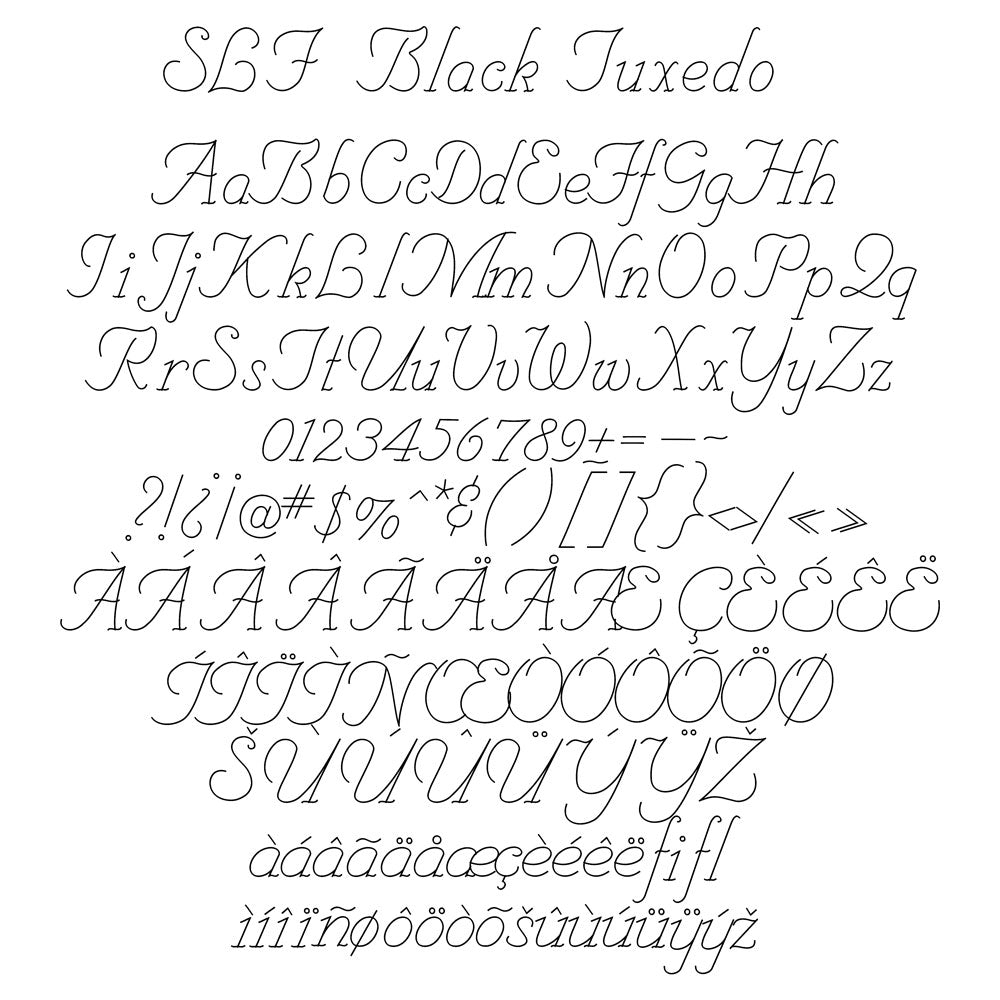
SLF Black Tuxedo – Dressy Single Line Font for Invitations & Engraving
SLF Black Tuxedo is a dressy single line print font with a polished, formal look—perfect for invitations, greeting cards, elegant signage, engraving, Foil Quill, Glowforge projects, and more. This font includes an extended Latin character set for additional languages (see the character set image on the listing).
This monoline font is designed to work beautifully for engraving, scoring, sketch pen tools, and CNC-style projects where clean, refined lettering matters.
• Wedding and event invitations
• Formal stationery and announcements
• Foil Quill and pen plotters
• Personalized gifts and keepsakes